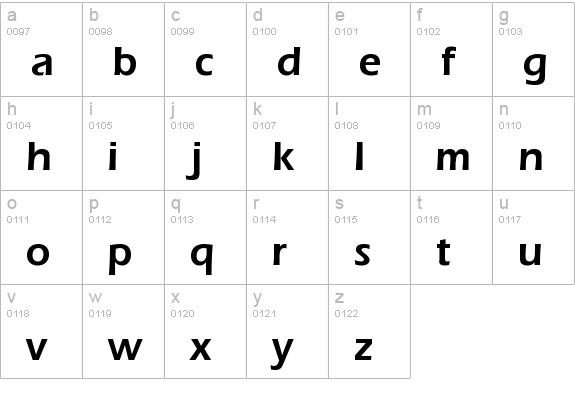
ErieBlack Font Details
ErieBlack font is a bold and striking typeface that exudes power and sophistication. With its clean lines and modern design, this font is perfect for making a statement in any project. Whether you're creating a logo, poster, or branding materials, ErieBlack font will add a touch of elegance and professionalism. What's even better is that ErieBlack font is freely available to download at FontsMarket.com. This means you can easily access this high-quality font for your personal and commercial projects without any cost. So go ahead and elevate your designs with ErieBlack font today!